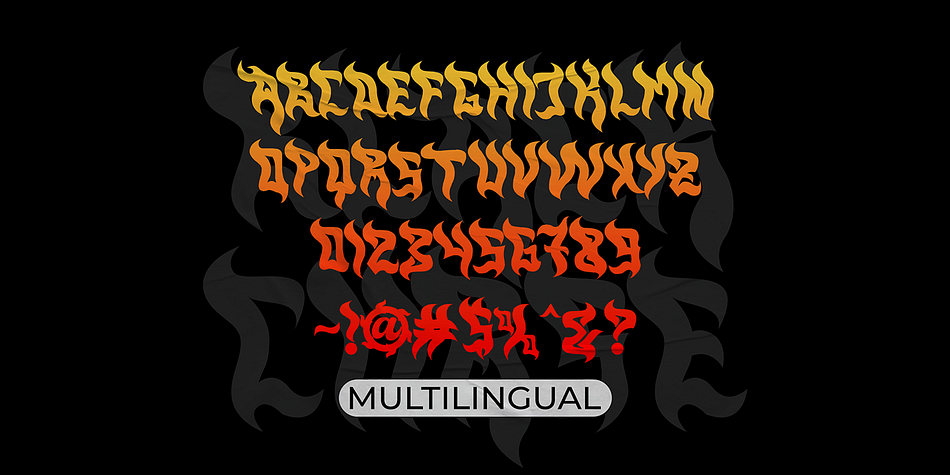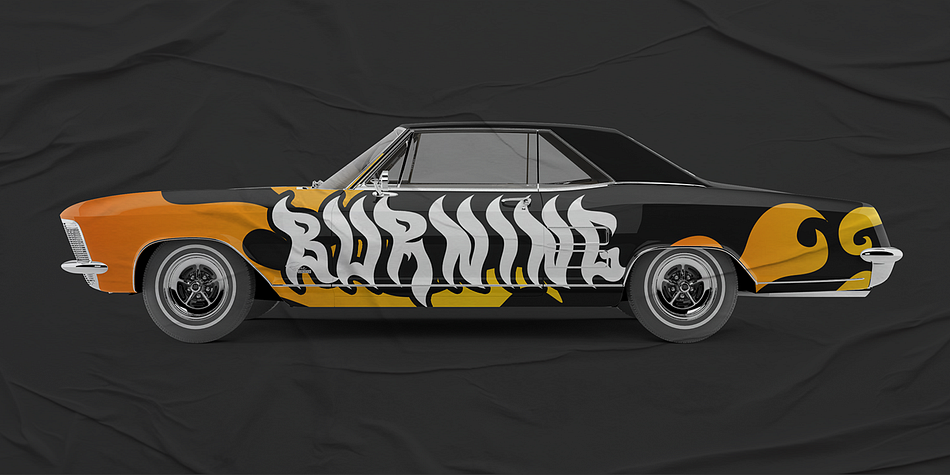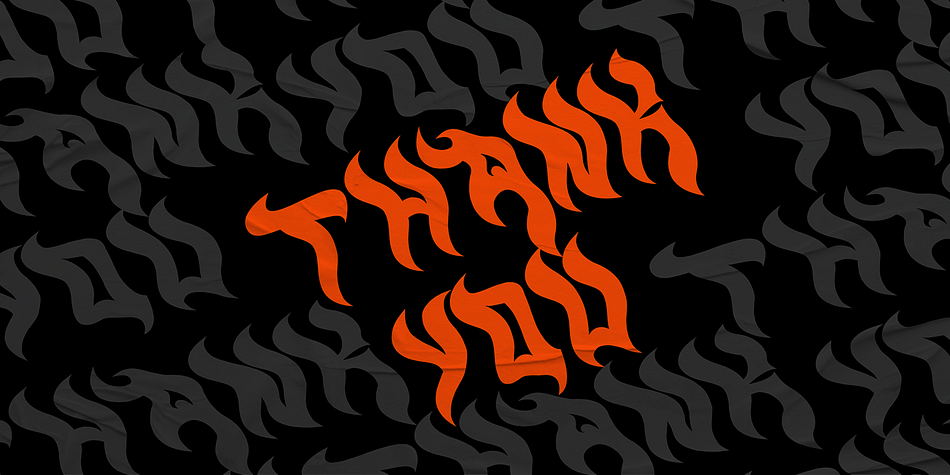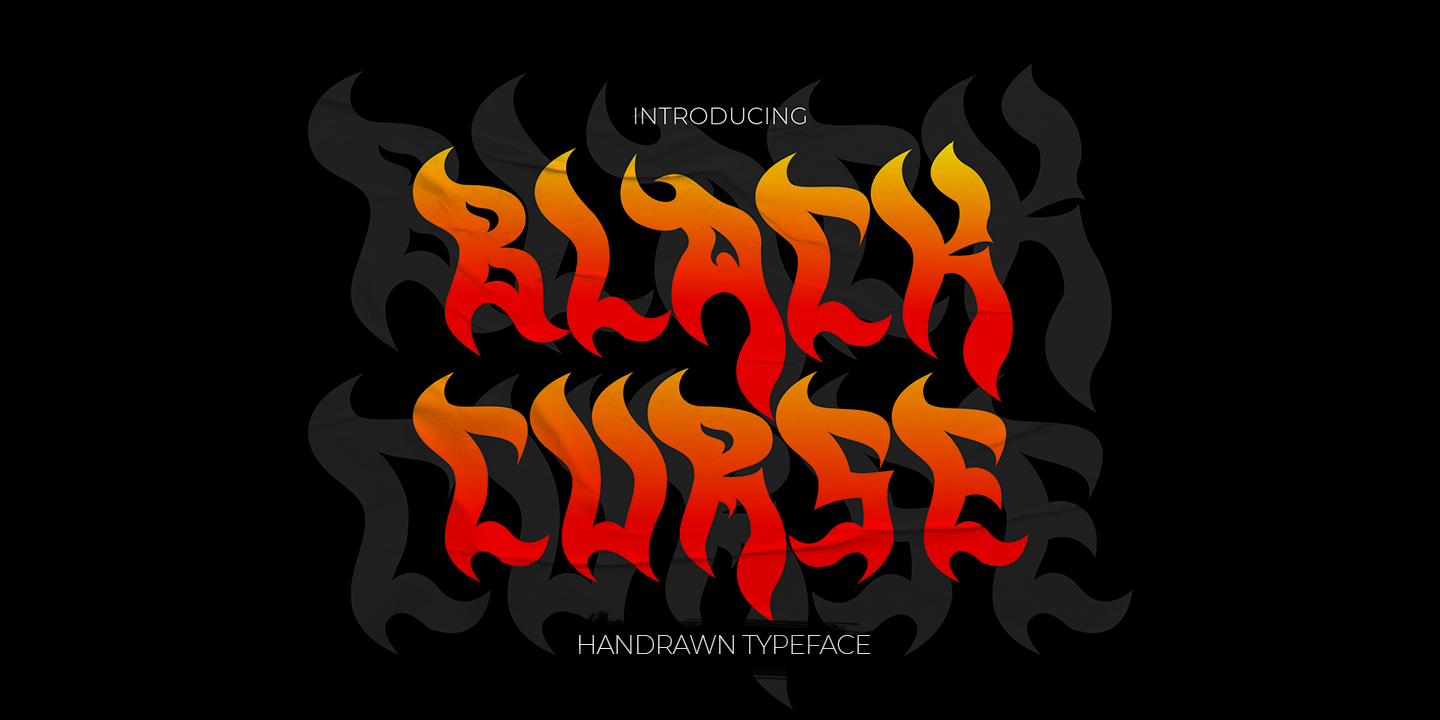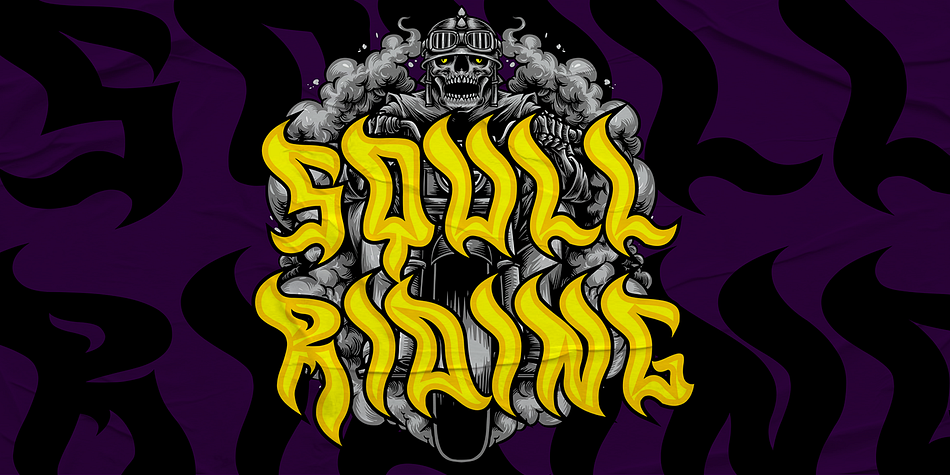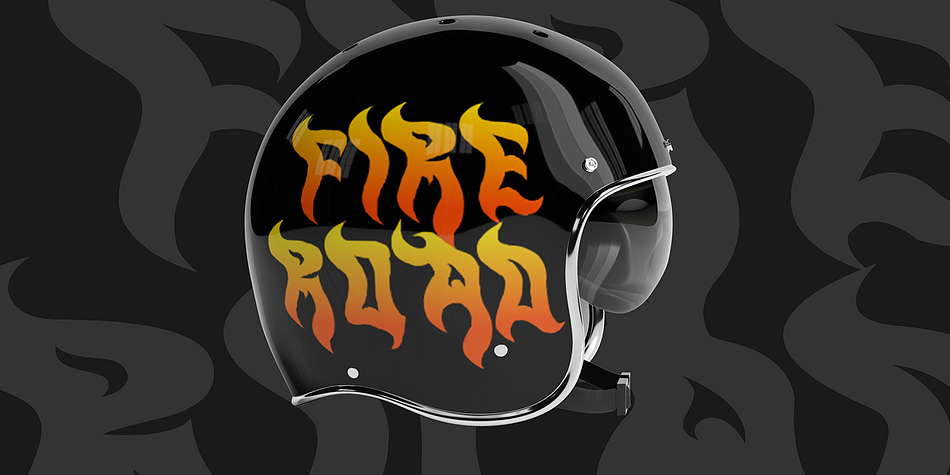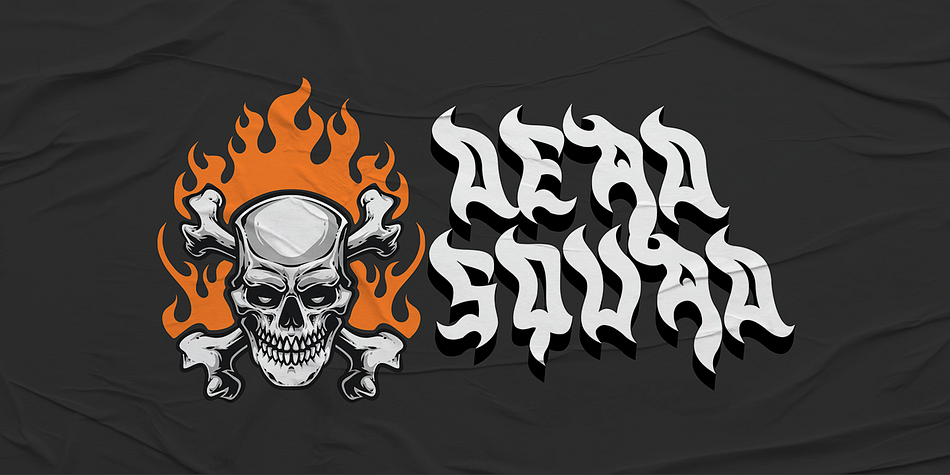
BLACK CURSE
Black Curse is a grunge font family published by Cikareotype Studio.
“Black Curse” is a hand-drawn typeface with a fiery appearance, evoking the visual elements of flames or fire. Fonts like these typically feature irregular and organic letterforms, resembling the free-flowing nature of hand-drawn artwork. The fiery looks of “Black Curse” add a sense of intensity and energy to the typography, making it suitable for designs that aim to convey passion, strength, or boldness.
Whether used for posters, album covers, branding materials, or any project that requires a bold and expressive typographic style, “Black Curse” adds a fiery and dynamic element to the text, enhancing its visual impact and making it stand out.